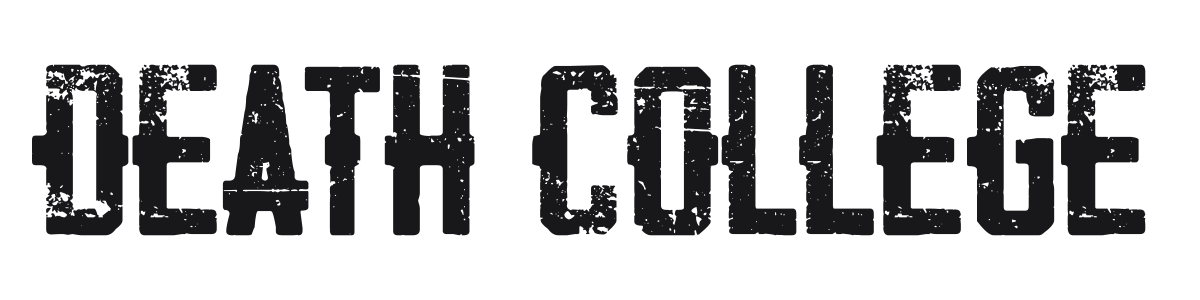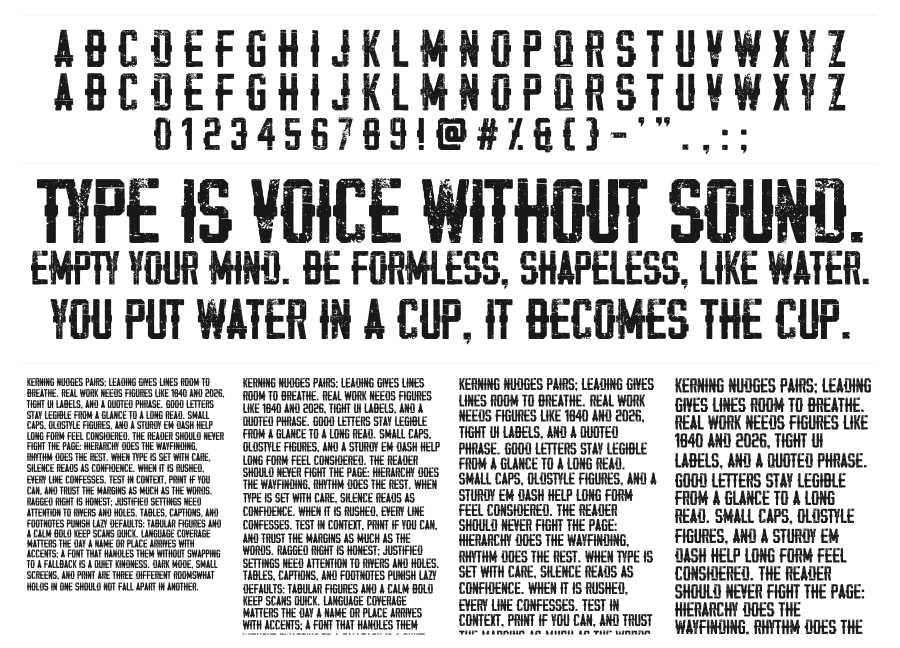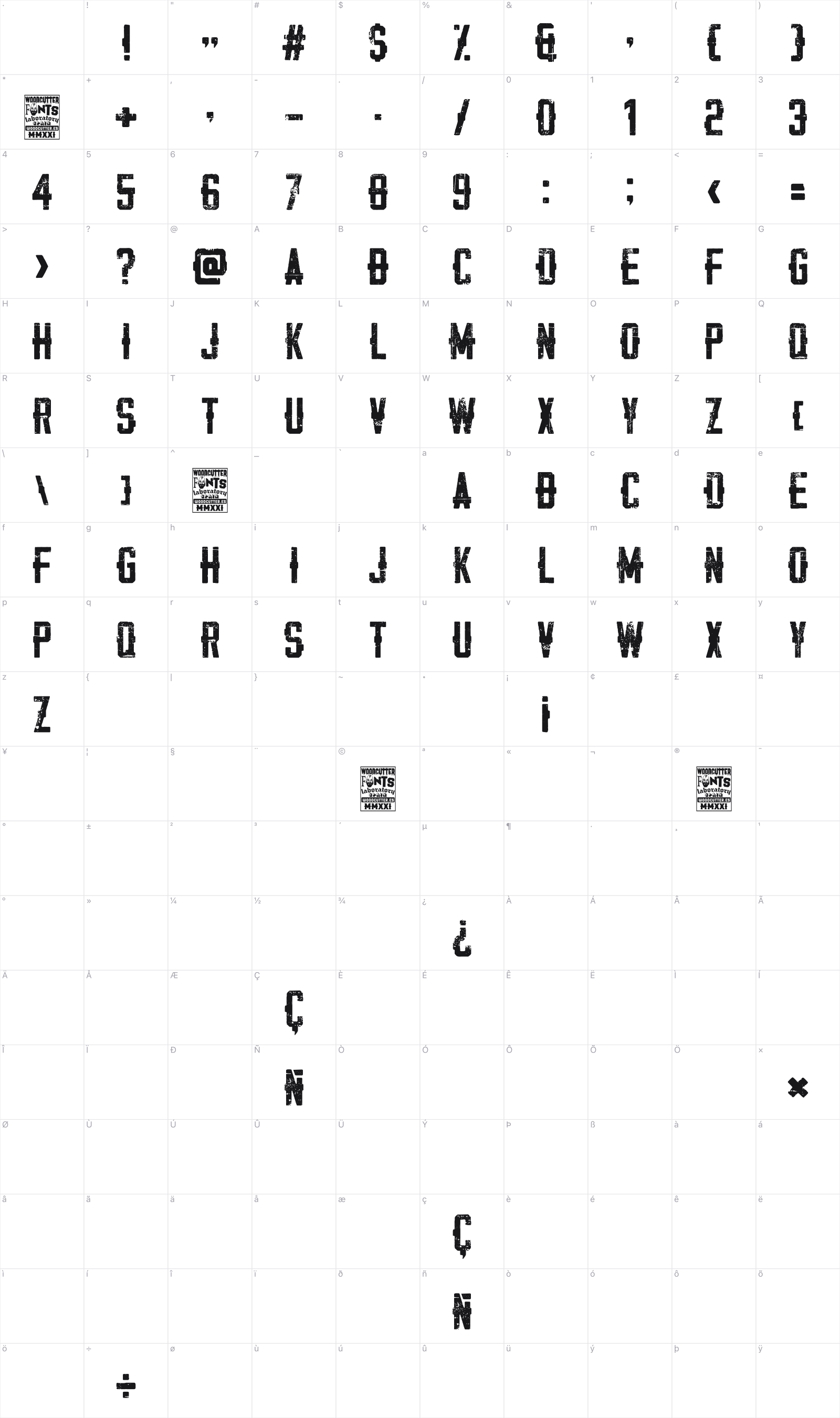
Death College
Death College is a heavy condensed slab-serif built on a collegiate block structure and thoroughly distressed with rough ink-texture erosion. The grit is baked in deep, pushing it well past varsity nostalgia into something darker and more aggressive. Strong for band merch, horror titles, and any headline that needs weight with attitude.